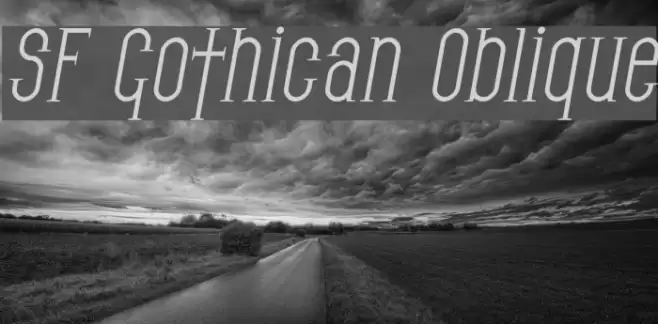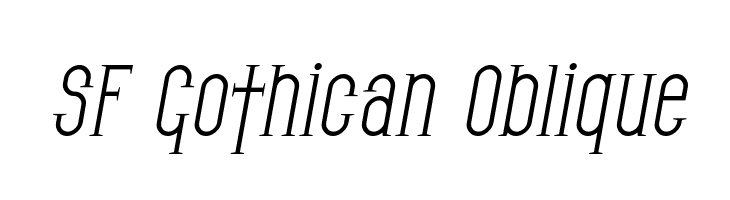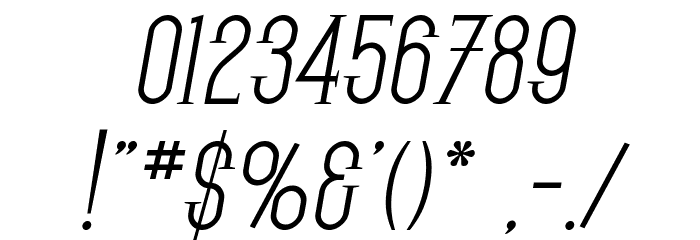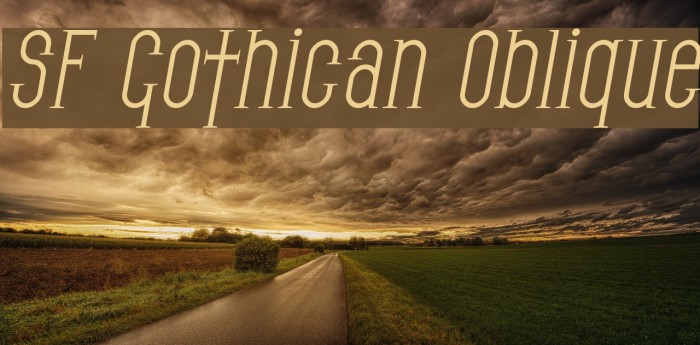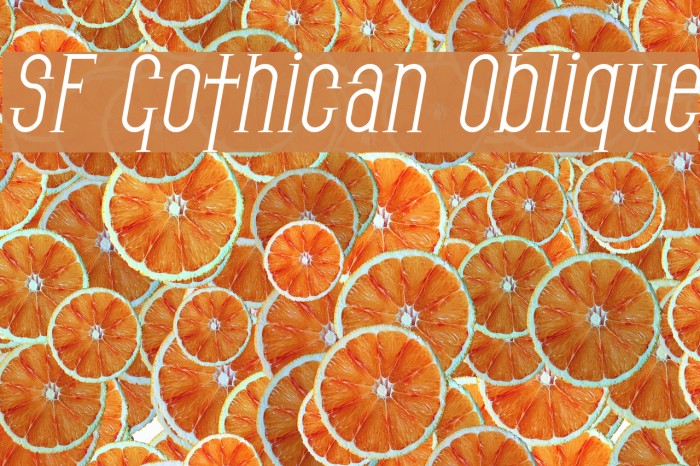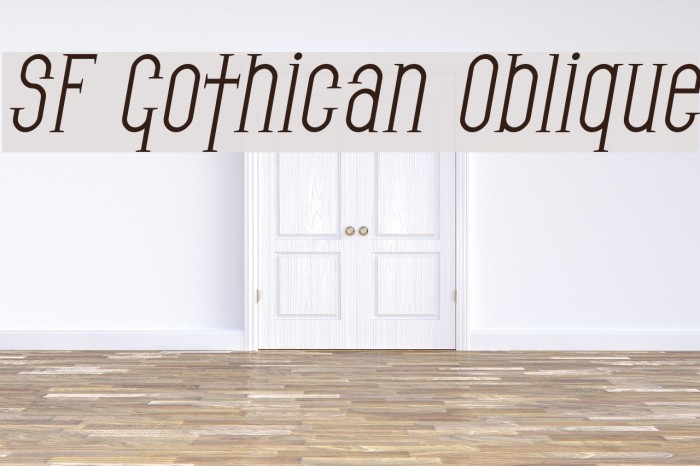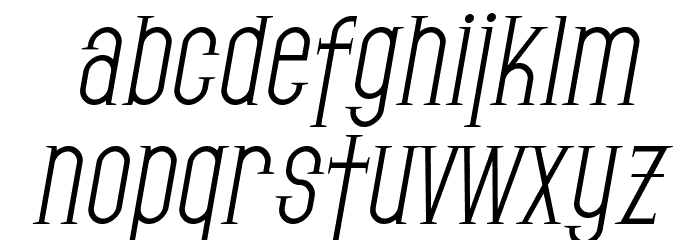
SF Gothican Oblique Font
SF Gothican Oblique Description
This font features a distinct oblique style with elongated, narrow characters that convey a sense of movement and modernity. The uppercase letters are tall and slender, while the lowercase letters maintain a consistent height, creating a harmonious balance. The numerals are similarly styled, ensuring uniformity across all characters. Special characters are designed with the same oblique slant, integrating seamlessly with the rest of the typeface. The overall appearance is sleek and sophisticated, making it suitable for contemporary design projects.
A modern, oblique font with narrow, elongated characters from Gothic fonts.
- Proposed Projects: Ideal for branding, editorial design, and modern advertising campaigns.